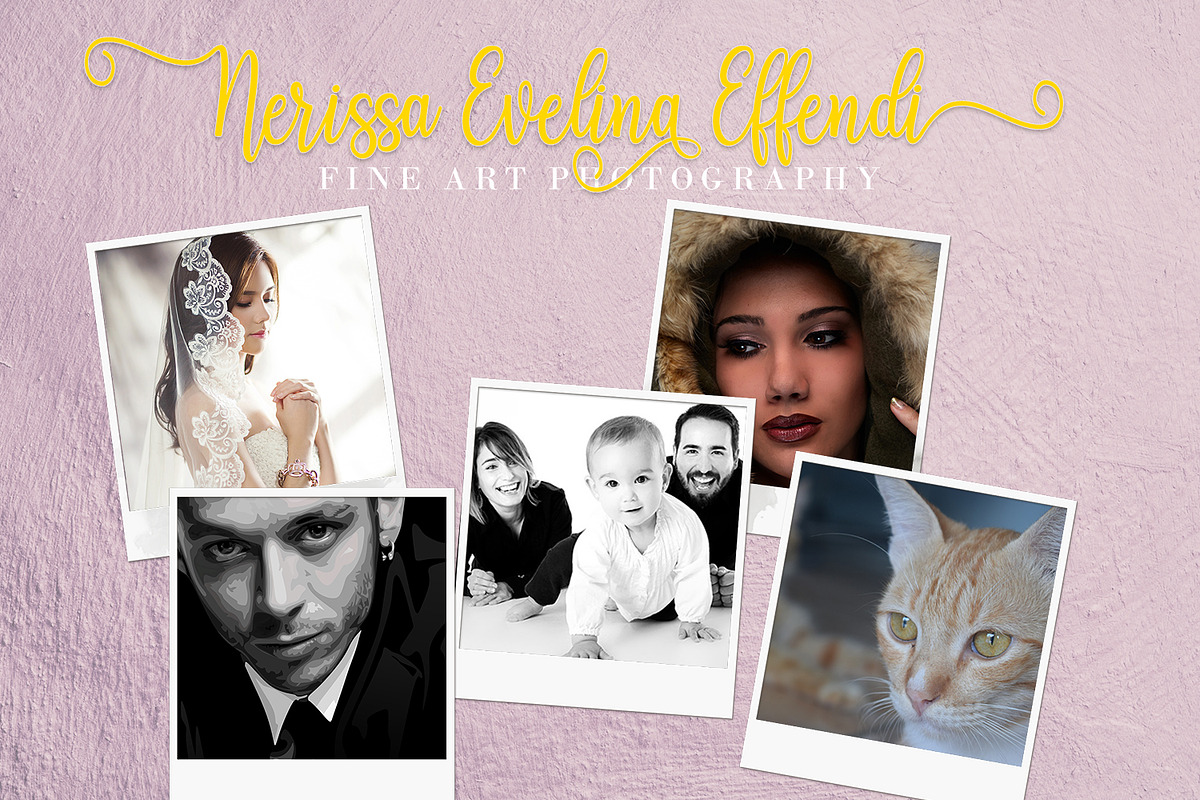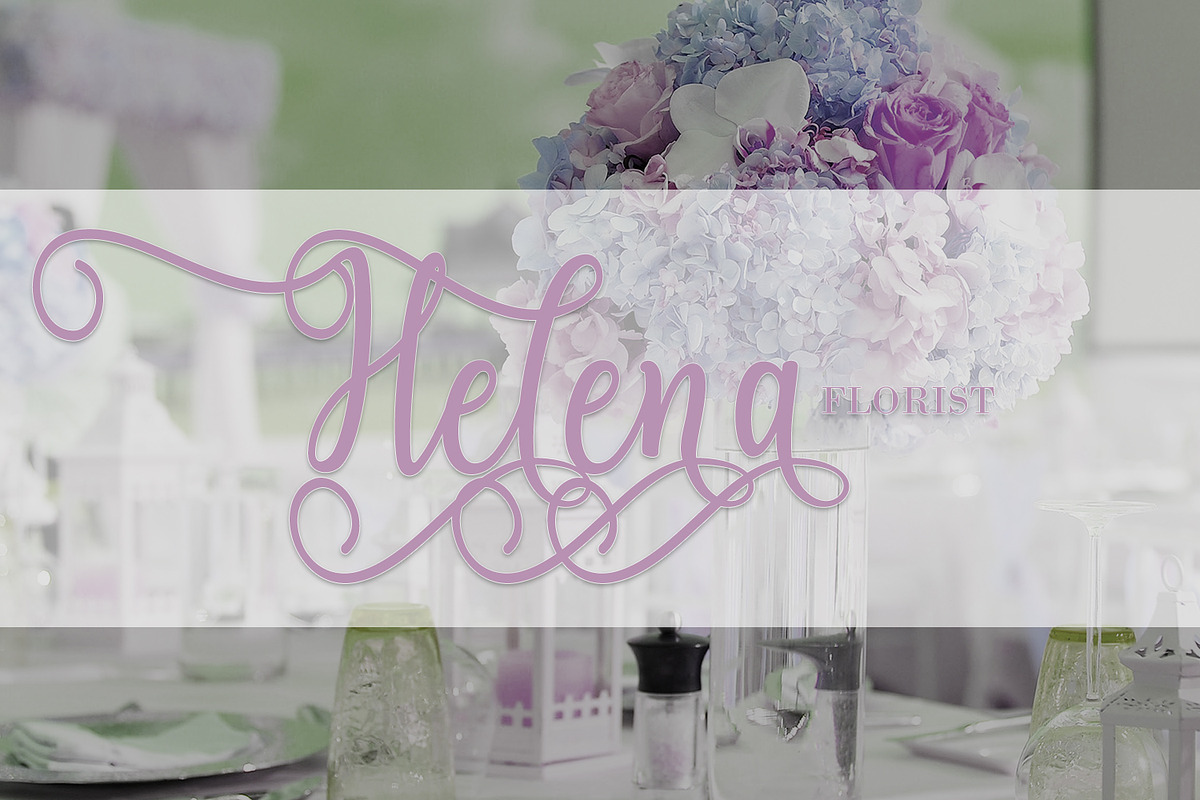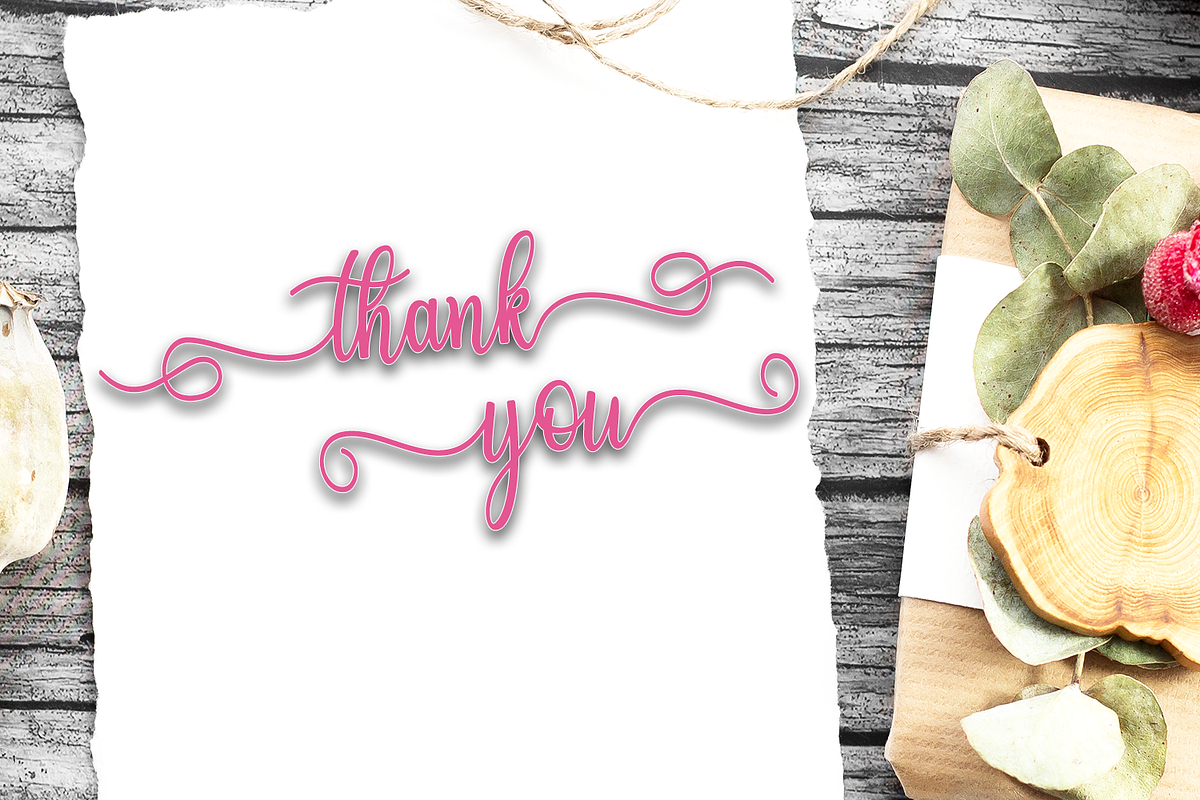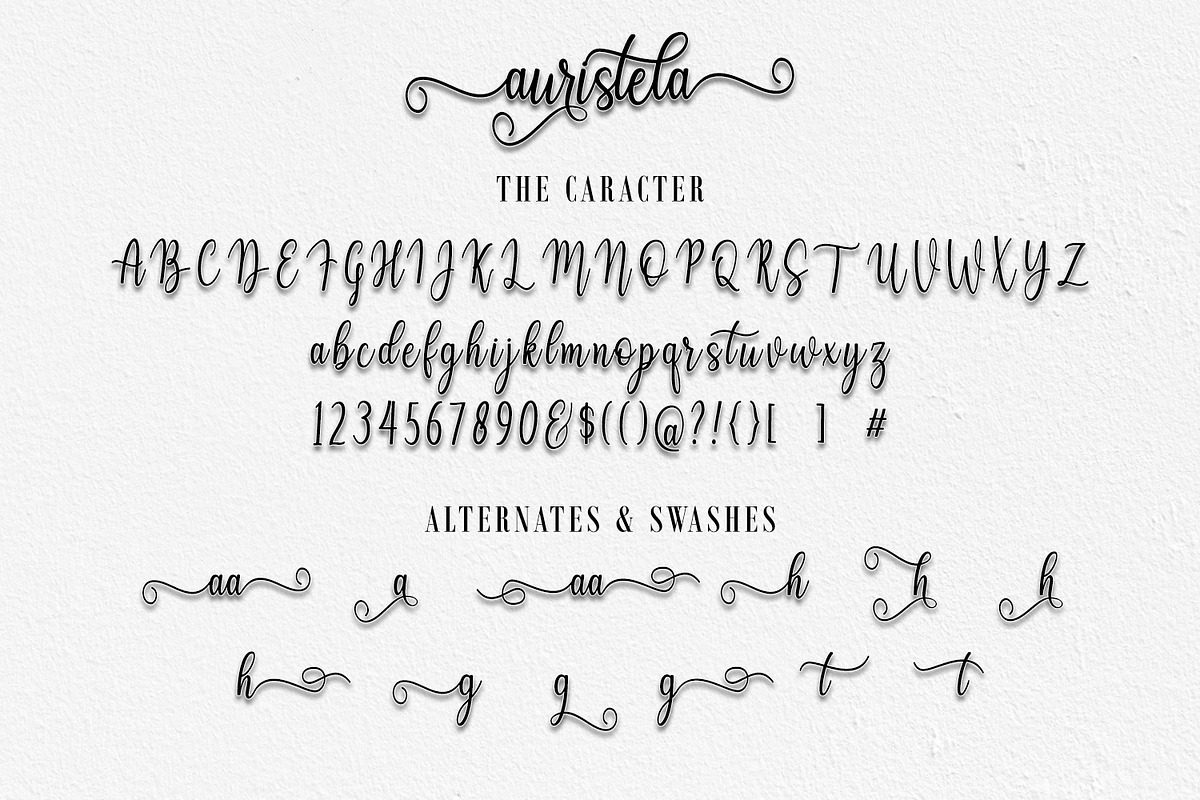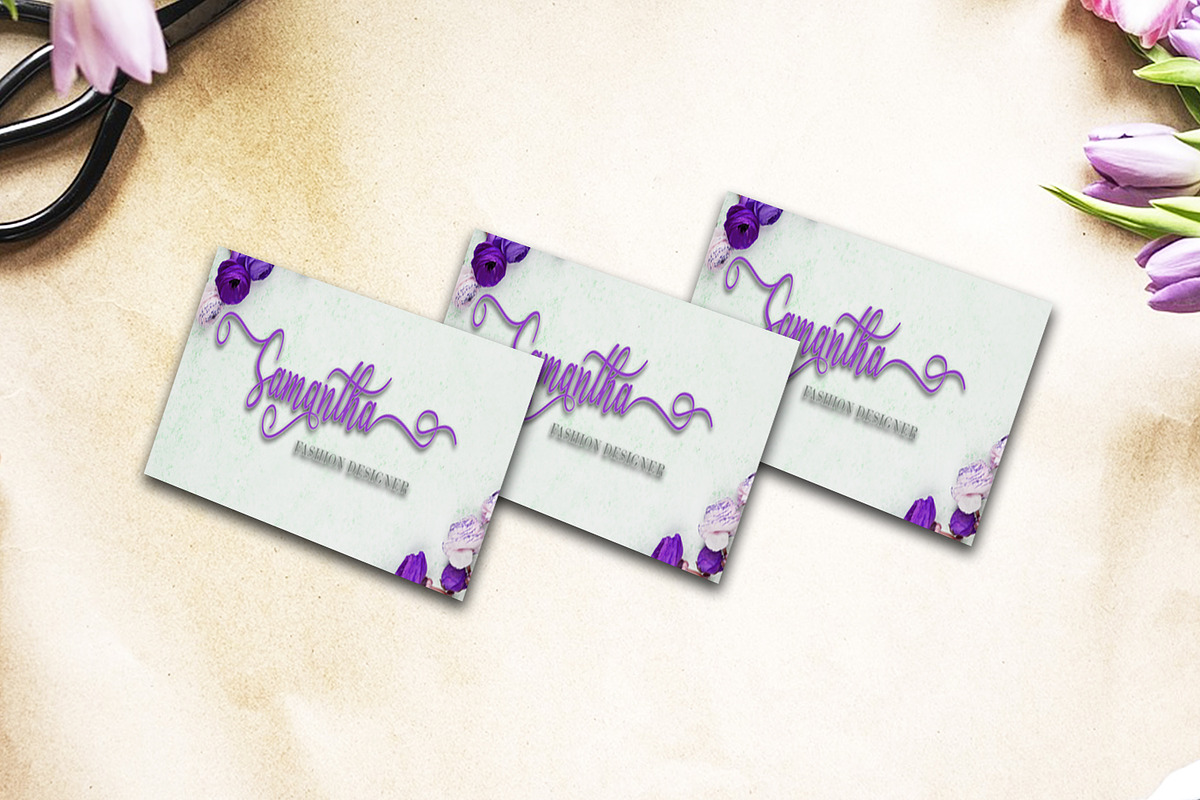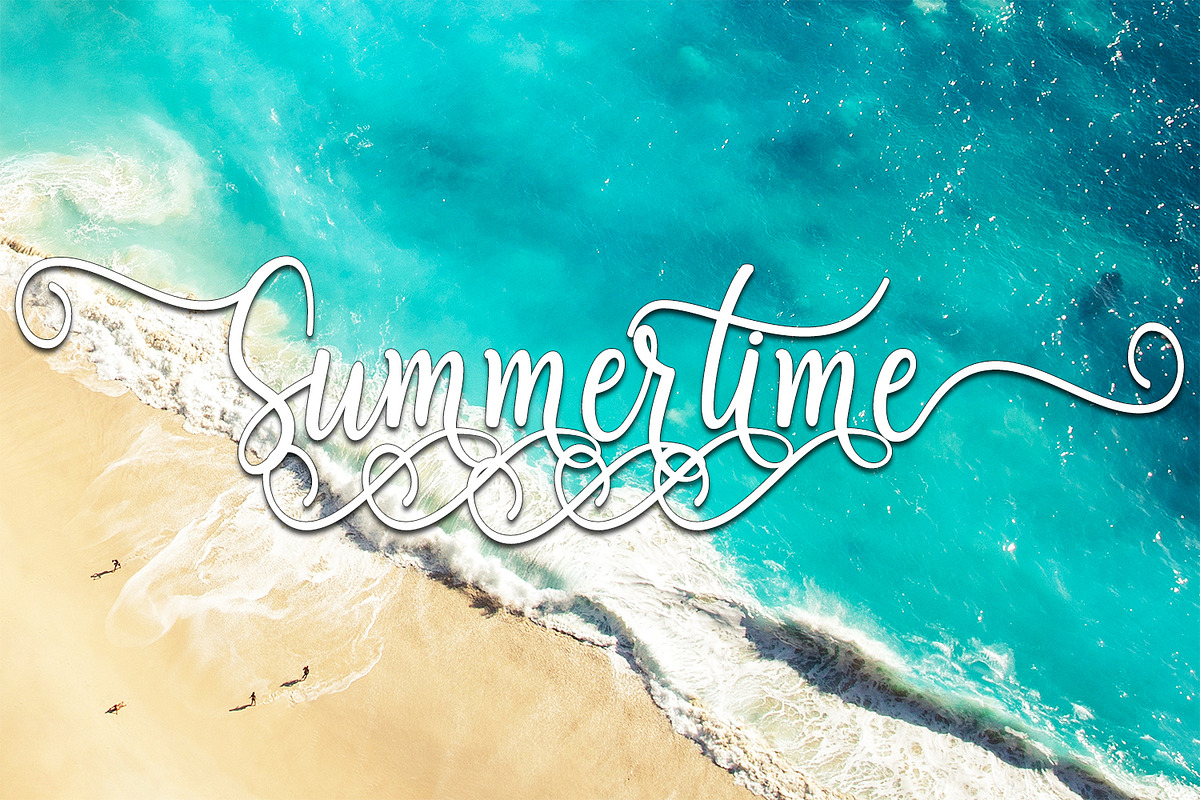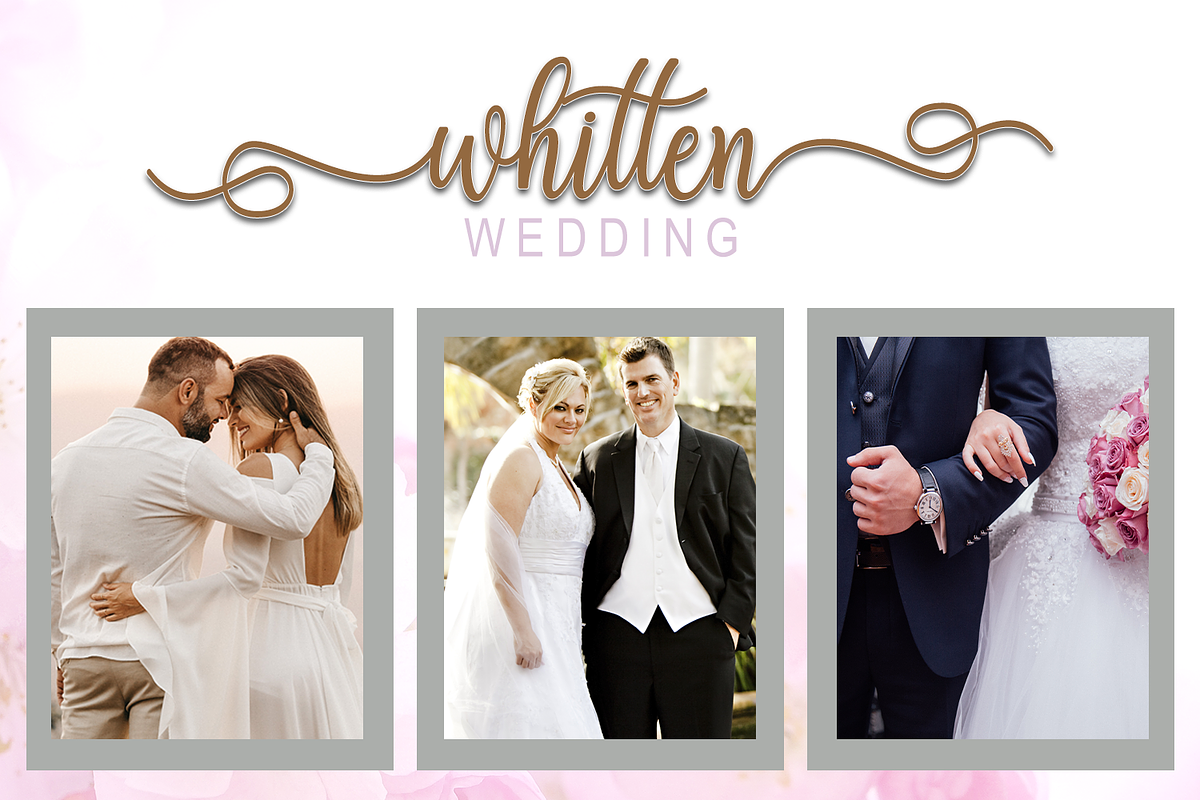
Auristela Script Font
Auristela Script, is modern calligraphy script font, every single letters has been carefully crafted to make your text looks beautiful. With modern script style this font will perfect for many different project, example: invitations, greeting cards, posters, name card, quotes, blog header, branding, logo, fashion, apparel, letter, stationery and more!
Auristela Script come with 350+ glyphs. The alternative characters were divided into several Open Type features such as Swash, Stylistic Sets, Stylistic Alternates, Contextual Alternates. The Open Type features can be accessed by using Open Type savvy programs such as Adobe Illustrator, Adobe InDesign, Adobe Photoshop Corel Draw X version, And Microsoft Word. And this Font has given PUA unicode (specially coded fonts). so that all the alternate characters can easily be accessed in full by a craftsman or designer.
Auristela Script : Uppercase & Lowercase International Language & Symbols Support Punctuation & Number PUA Unicode Range Standard Stylistic Alternates Stylistic Set 01-08 Character Variant Contextual